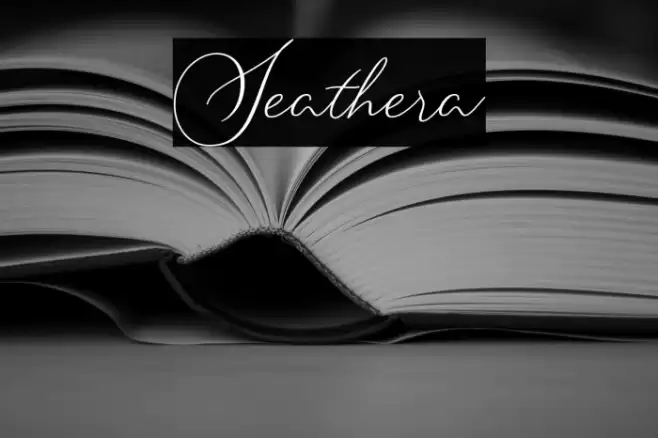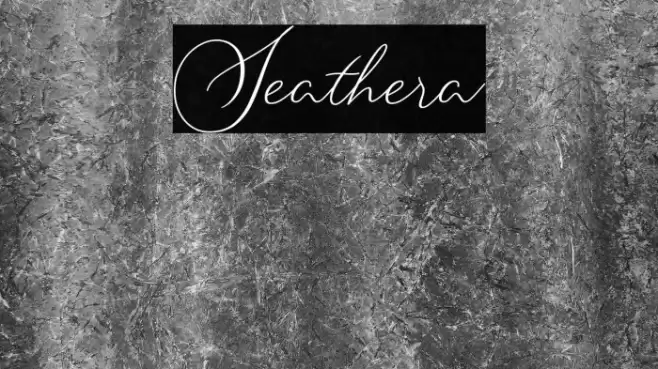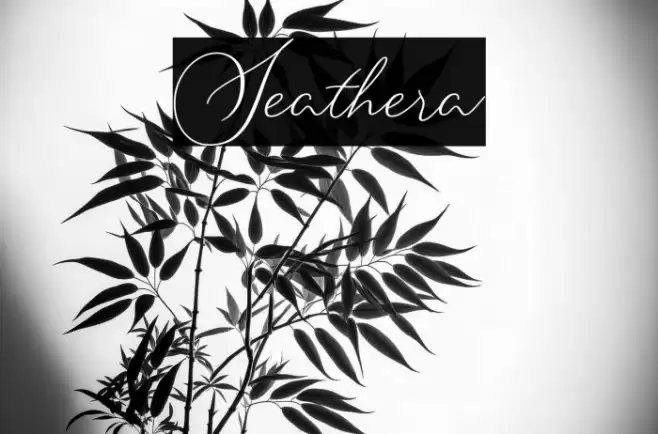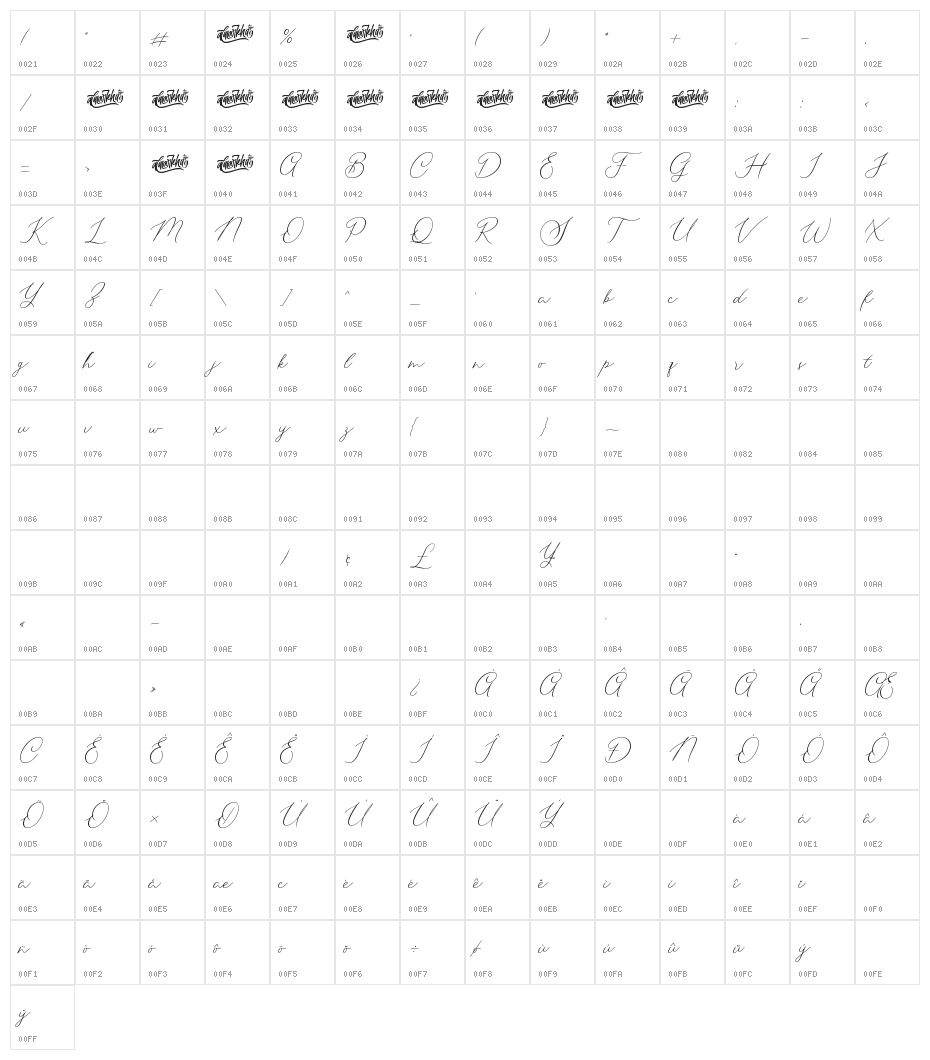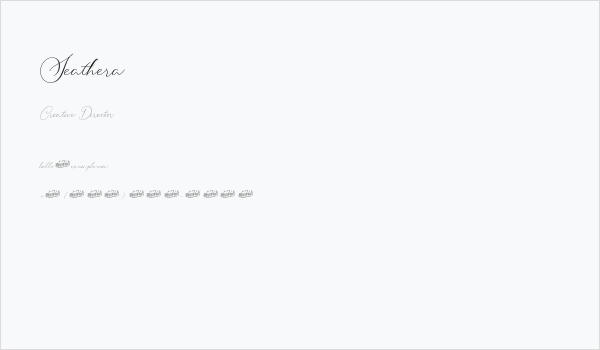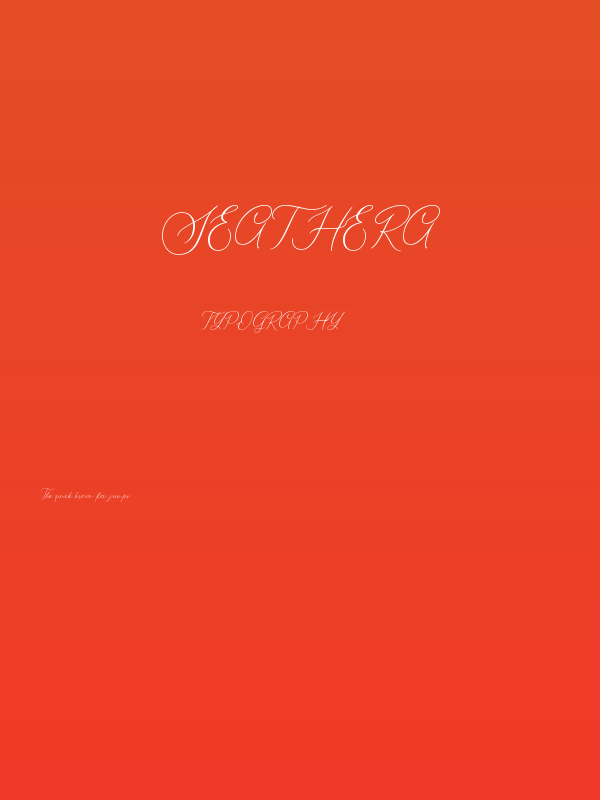
Seathera Font
Seathera Description
This elegant script font features a flowing, cursive style with smooth, continuous strokes. The uppercase letters are characterized by their graceful loops and swashes, creating a sense of fluidity and movement. The lowercase letters maintain a consistent style, with delicate connections between each character. The font exudes a sense of sophistication and charm, making it ideal for formal invitations, branding, and decorative purposes. The special characters are designed with the same attention to detail, ensuring a cohesive look across all text elements.
An elegant, flowing script font with graceful loops and swashes from Regular fonts.
- Proposed Projects: Ideal for wedding invitations, elegant branding, greeting cards, and decorative signage.
- Overall Style: Elegant, Sophisticated
- Use Case: Headlines, Invitations, Branding